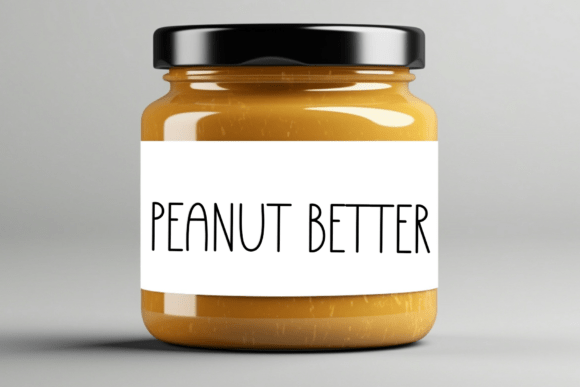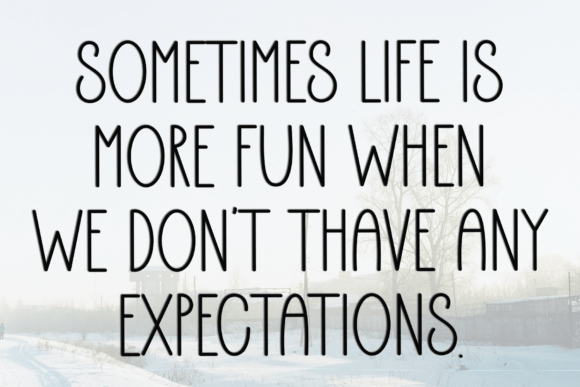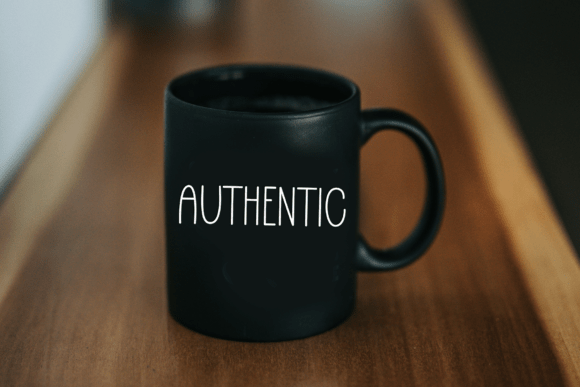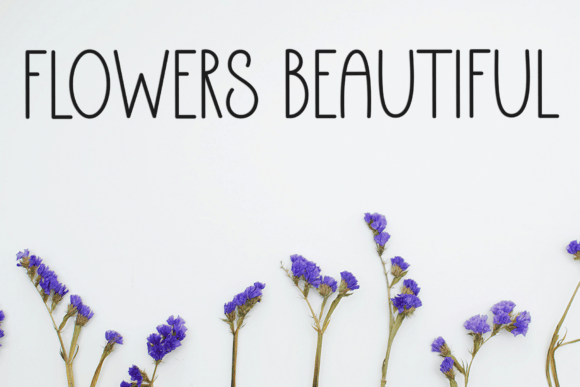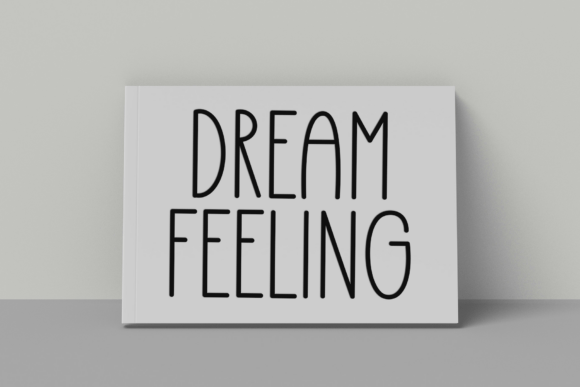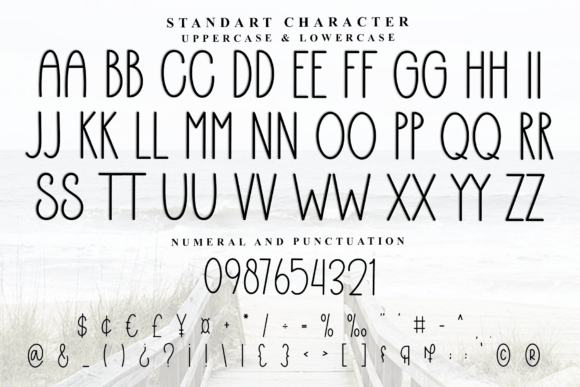
Discover the Magic of Basic Writing Font
Remember that moment when you stumbled upon the perfect font that transformed your design project? The one that made it pop, telling a story and captivating your audience? For designers, finding that elusive font can be a game-changer. It’s a feeling that can elevate your work from good to great, and that’s exactly what the Basic Writing Font can do.
This beautiful and eye-catching font boasts a soft, unique touch that sets it apart from the rest. Its distinctive strokes give it a special character, making it meaningful and versatile for future use. With various characters at your disposal, the Basic Writing Font is perfect for design projects, crafts, and other creative works.
Basic Writing Font Key Features
- Unique Characteristics: Designed with clear, legible letterforms and a neutral aesthetic to minimize distractions and promote focus
- Weight and Style Options: Available in 5 weights (Light, Regular, Medium, Semi-Bold, and Bold) and 3 styles (Regular, Italic, and Bold Italic), offering flexibility for various writing and design needs
Basic Writing Font Review
I recently had the chance to work with the Basic Writing Font, and I must say it was a mixed bag. Here are my honest thoughts on this font.
- Legibility: The Basic Writing Font is indeed legible, making it easy to read, even at smaller font sizes.
- Simple Design: The clean and simple design of the font makes it perfect for body text and articles where clarity is key.
- Wide Character Support: The font has a wide character set, including many languages, making it a great choice for international publications.
- Lack of Personality: The Basic Writing Font is just that – basic. It lacks the personality and flair that some fonts bring to a design.
- Not Suitable for Headlines: The font is not bold or eye-catching enough to be used for headlines or titles, which can make it look dull.
- Not Ideal for Creative Projects: The font’s simplicity can make it feel unengaging for creative projects or publications that need a bit of flair.
Overall, I would give the Basic Writing Font 3 out of 5 stars. While it’s a solid choice for body text and simple publications, it’s not the best option for projects that need a bit of personality or flair.
Alternatives to Basic Writing Font
Georgia is a serif font designed for body text, particularly for digital displays. It is clear and readable at small sizes. Use Georgia when you need a traditional, elegant font for your body text. Georgia is more formal and classic compared to Basic Writing Font, which is more straightforward and simple.
Merriweather is a classic serif font designed to be highly legible. It is suitable for large blocks of text, making it ideal for academic or technical writing. Use Merriweather when you want a traditional, yet professional font for your body text. Merriweather is more formal and classic compared to Basic Writing Font, but has a more refined and elegant feel.
Libre Baskerville
Libre Baskerville is a serif font designed for digital media. It is highly legible and suitable for large blocks of text. Use Libre Baskerville when you want a clean, modern font for your body text. Libre Baskerville is more modern and sleek compared to Basic Writing Font, but has a more refined and elegant feel.